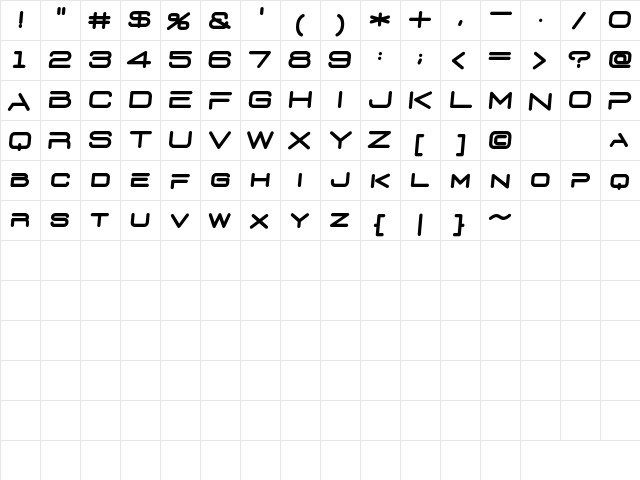
D3 Euronism Bold italic Regular
Design Context for D3 Euronism Bold italic Typeface
D3 Euronism Bold italic is a composed and adaptable typeface that performs quietly and consistently across a wide range of design contexts. The slanted form adds forward momentum and visual energy. Its bold stroke weight gives it real presence on the page.
Pro Tip: Use D3 Euronism Bold italic for emphasis, pull quotes, and subheadings where its slanted energy can add rhythm to the layout.